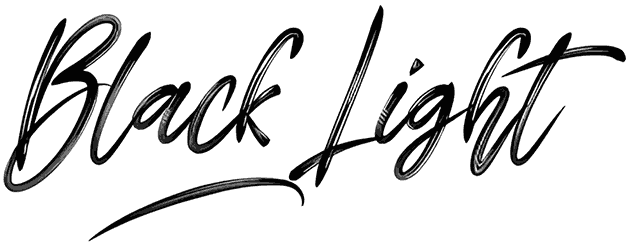
Black Light Font
Sign up for exposing the most marked script font with a painting mood, Black Light. Its urban face can restore the viewer’s choice to opt for something real. Some areas, such as street art shows, music album covers, card titles, social media posts, and others, would be brilliant.